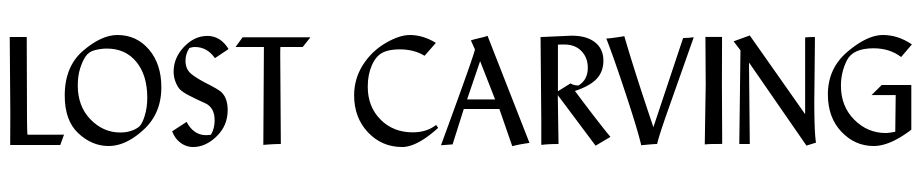
The Lost Carving Font
ArtsThe Lost Carving: A Journey to the Heart of Making is a book written by artist David Esterly about his journey to recreate a lost carving by Grinling Gibbons. The book chronicles Esterly's research and process of recreating the lost work, as well as his reflections on the art and craft of woodcarving.
The book title and author name are very similar to a font called Lydian. Warren Chapell created the Lydian typeface in 1938 for ATF. "The" part is set in a calligraphic variation of Lydian known as Lydian Cursive.